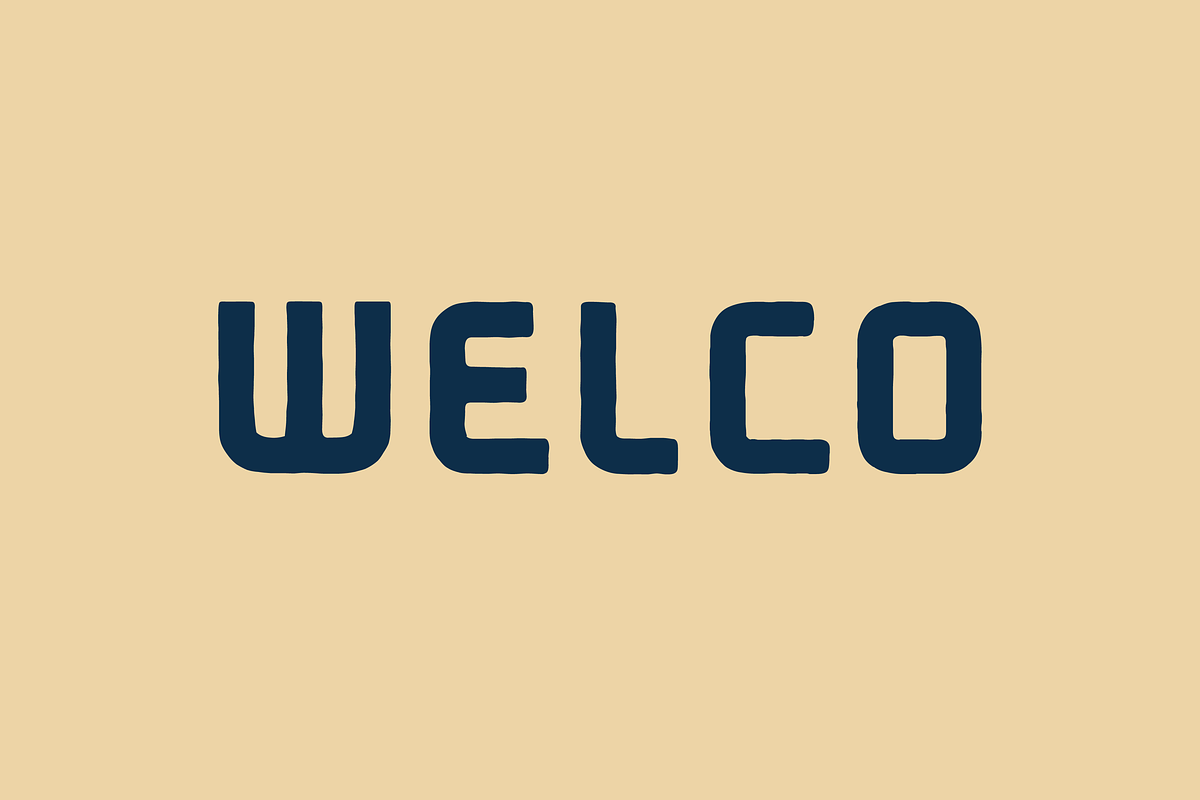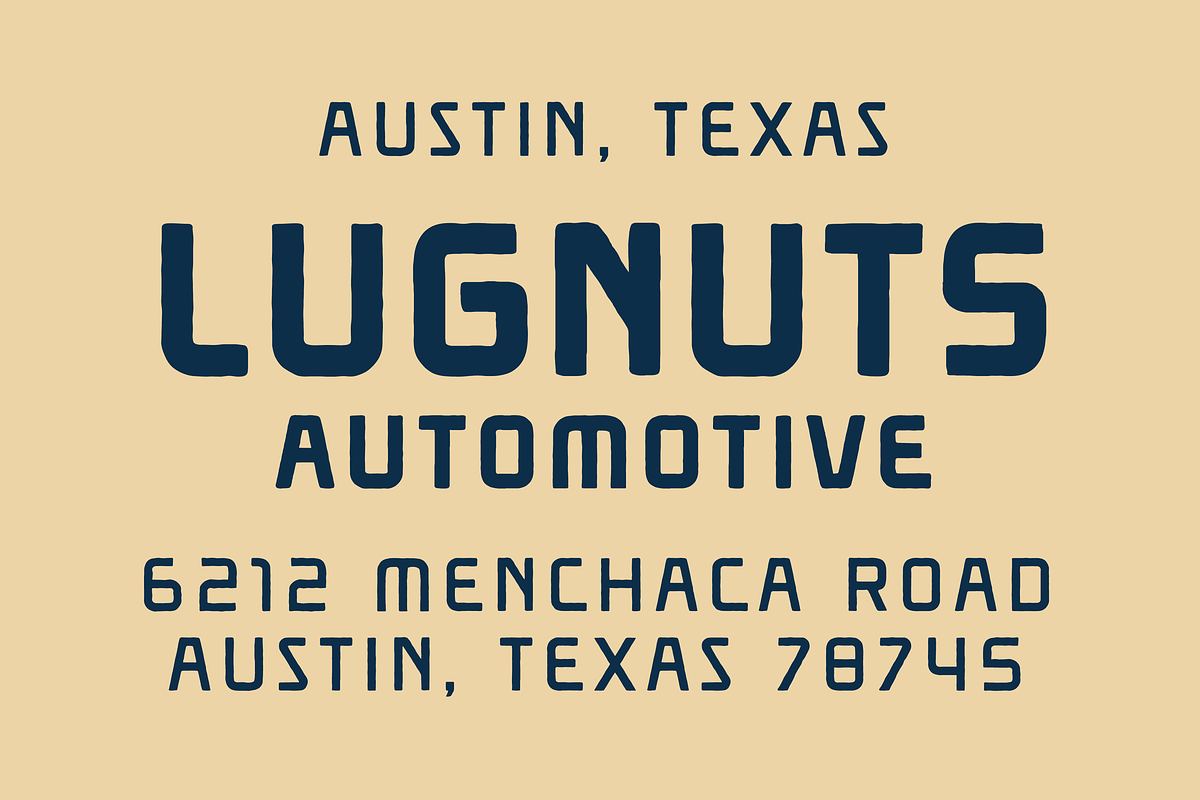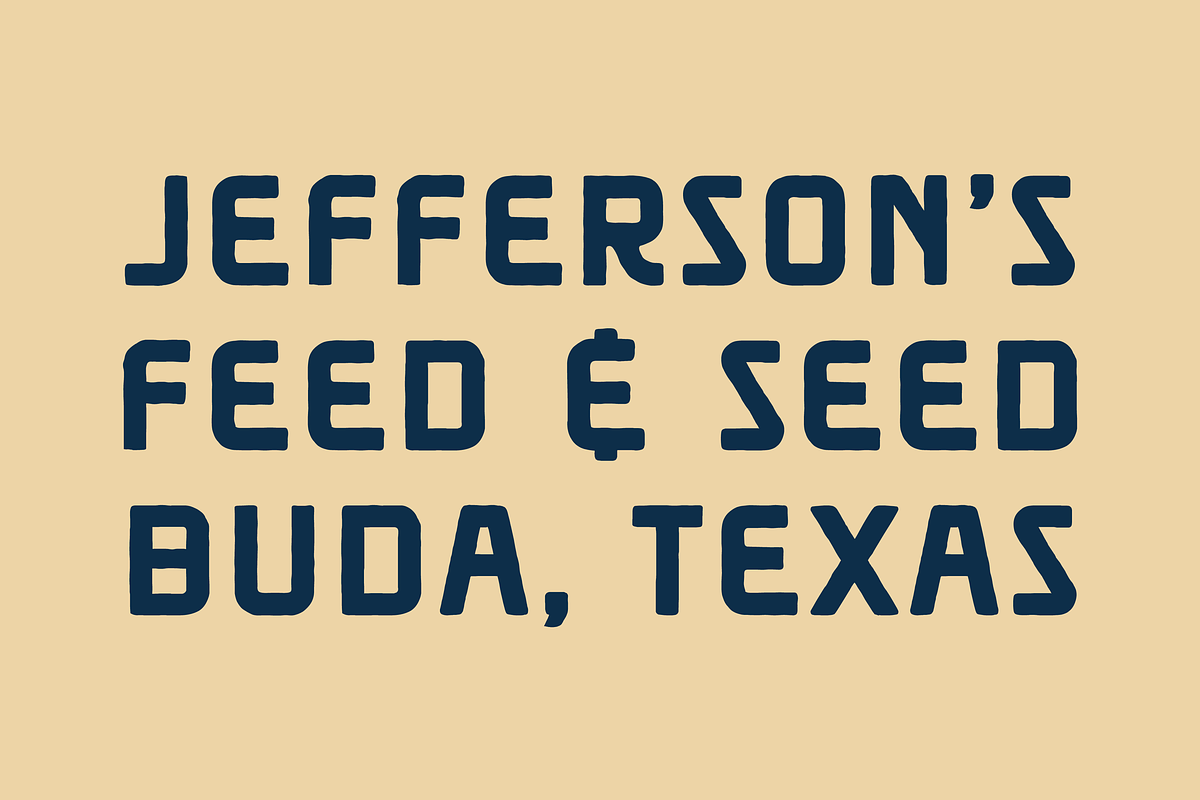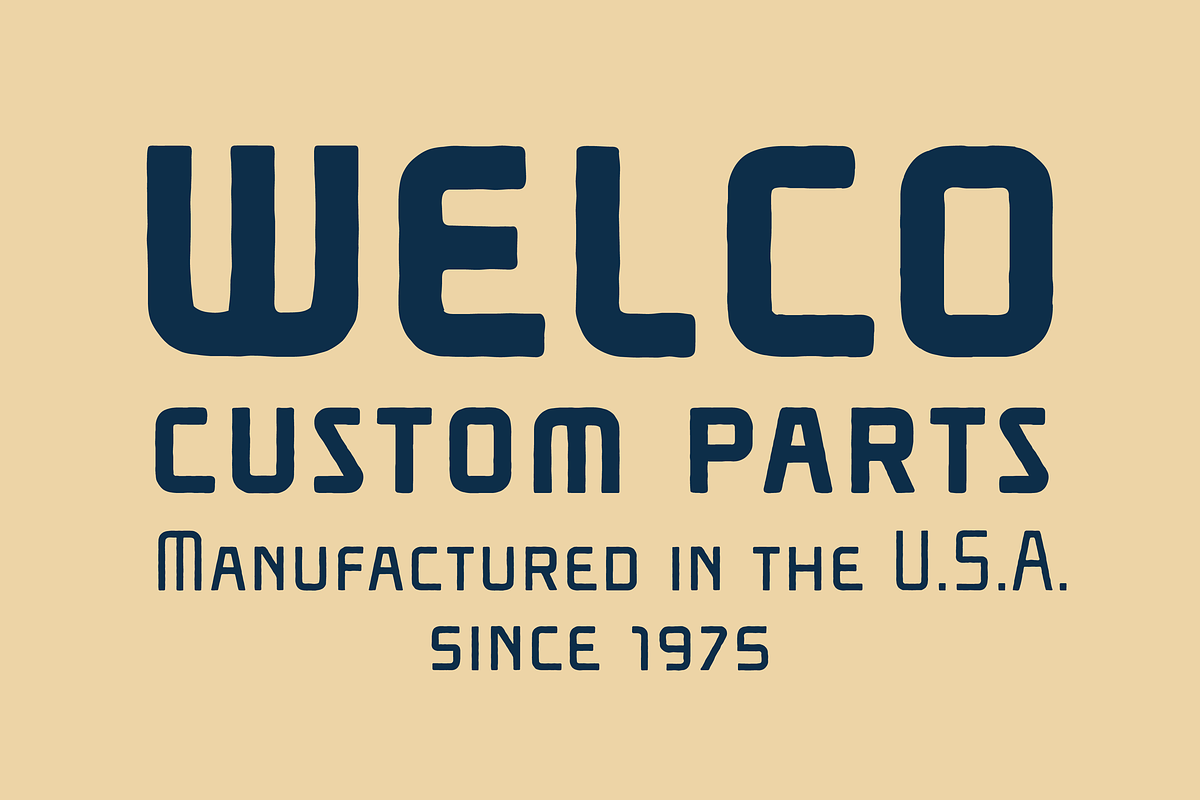
WELCO
WELCO is an industrial display typeface inspired by the stamped markings found on vintage machinery. Built on a rigid, square geometry and finished with distressed edges, it carries a raw, utilitarian character that feels both functional and timeworn. Designed for impact, WELCO is well-suited for projects that call for a bold, mechanical edge.